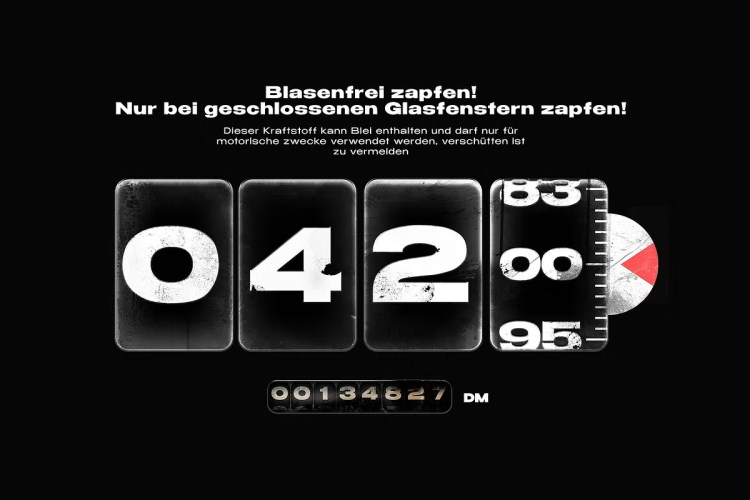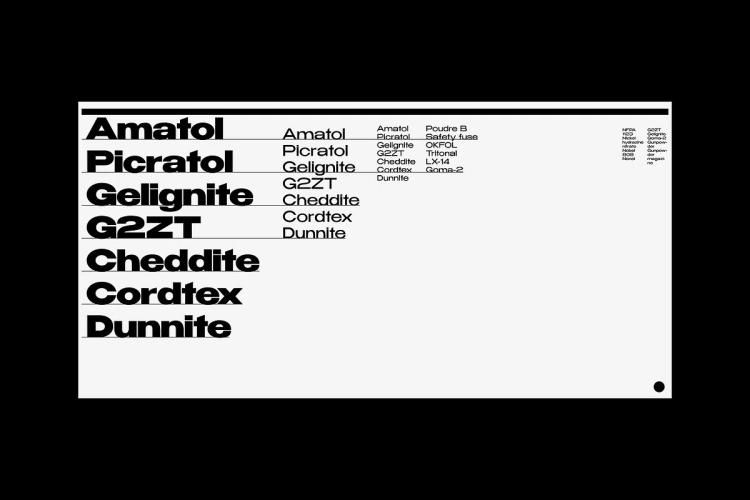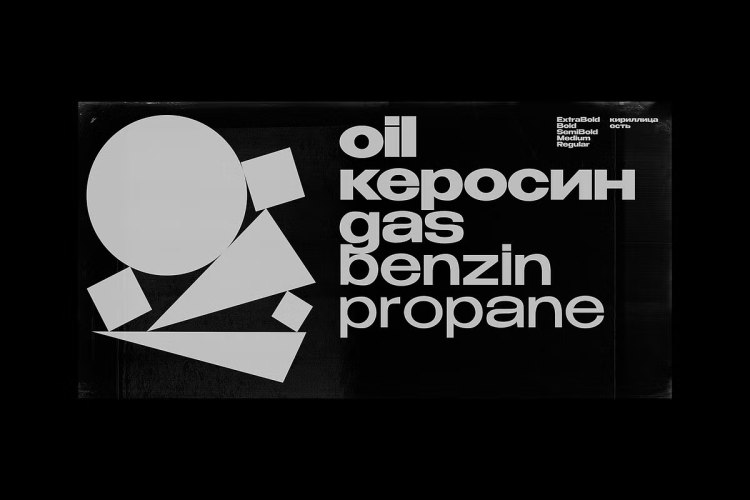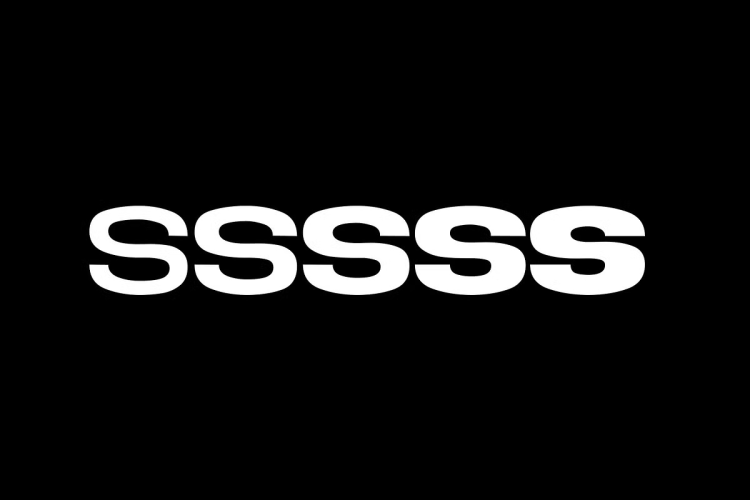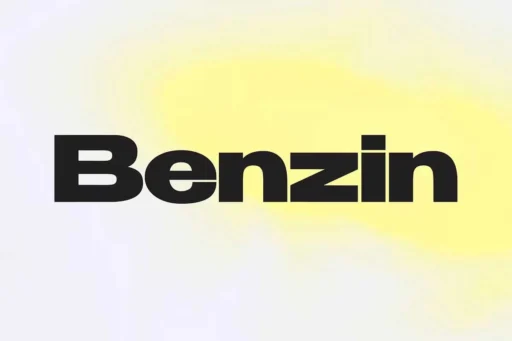
Benzin Font
Benzin is a sans serif font family by Supremat that is geometric in nature and comes with five unique styles. It is a highly suitable and widely applicable font for both titles and texts, which has received delicate adjustments in the kerning for the bold and thinner styles. The thin style has a tighter kerning than the regular style which is beneficial for small texts and paragraphs; the bold style on the other hand has a tighter kerning which is suitable for large headings and posters. This is a great font that enables you to apply bold styles for emphasis and thinner styles for when you are working with smaller texts and you do not have to bother with kerning adjustments. No matter whether you are developing a website or a poster, or creating a document, Benzin will help to make your typography effective and visually attractive.
Supported Languages: Alphabets used in Western Europe, Central/Eastern Europe, Baltic, Turkish, Romanian and Cyrillic.
Benzin Font is a Sans Serif Fonts font that brings a professional and versatile look to your projects. Benzin is a sans serif font family by Supremat that is geometric in nature and comes with five unique styles.